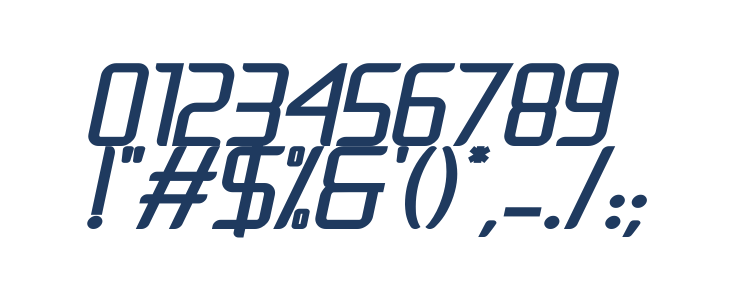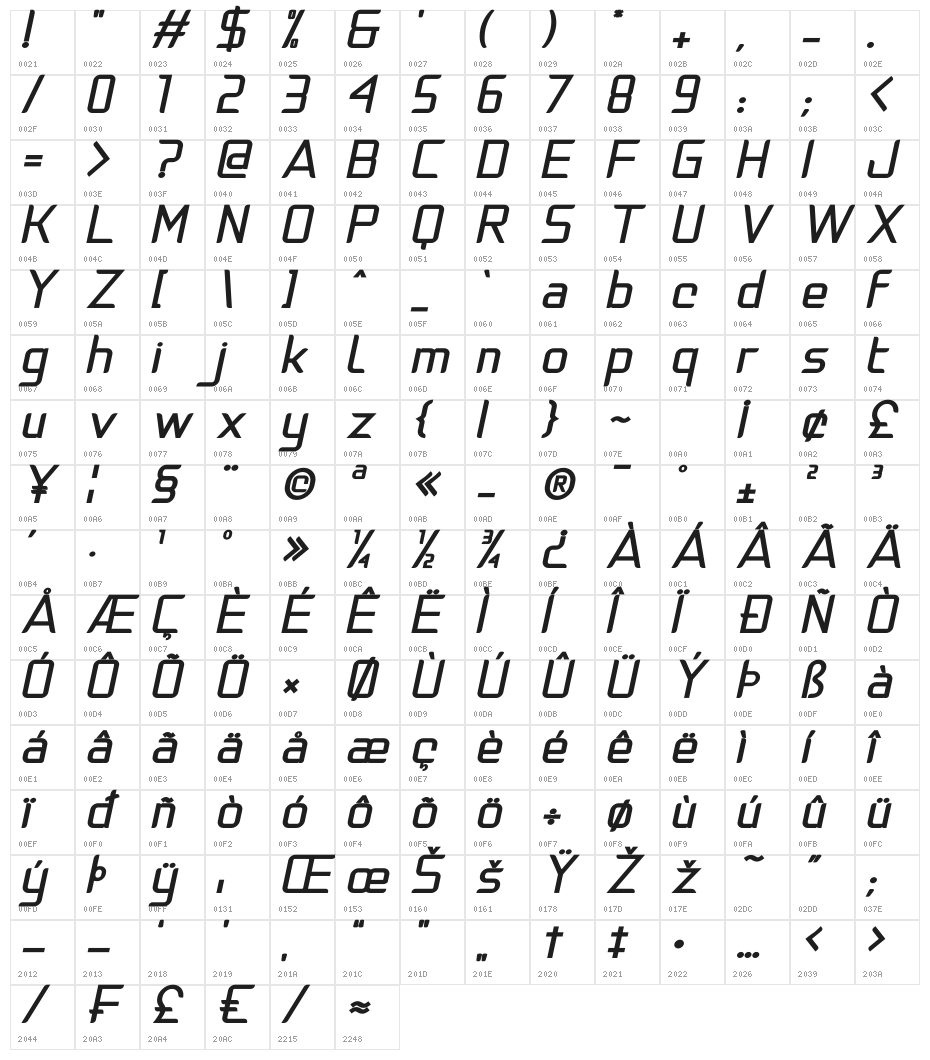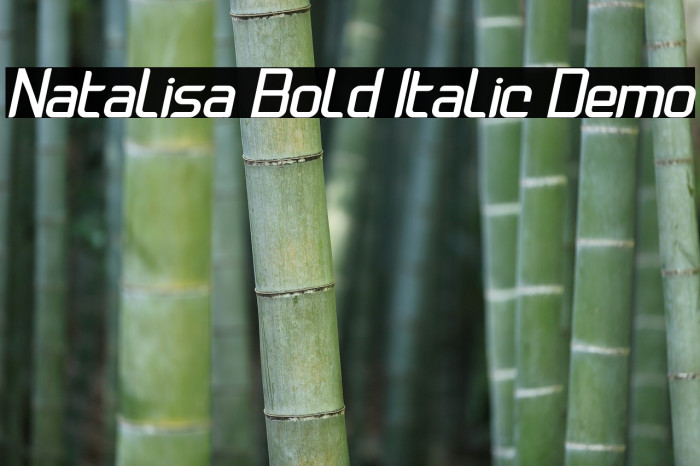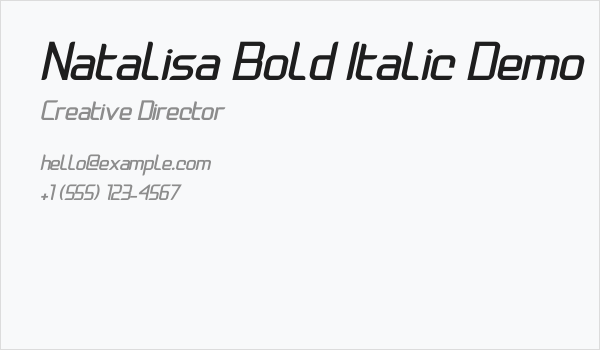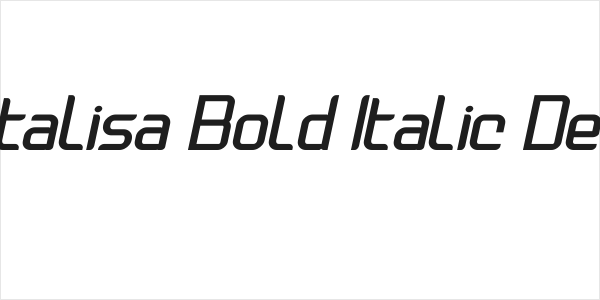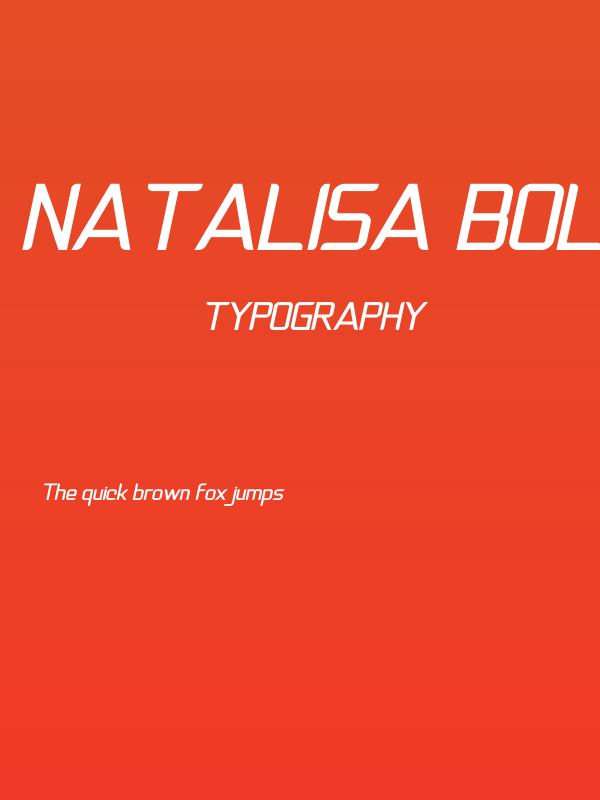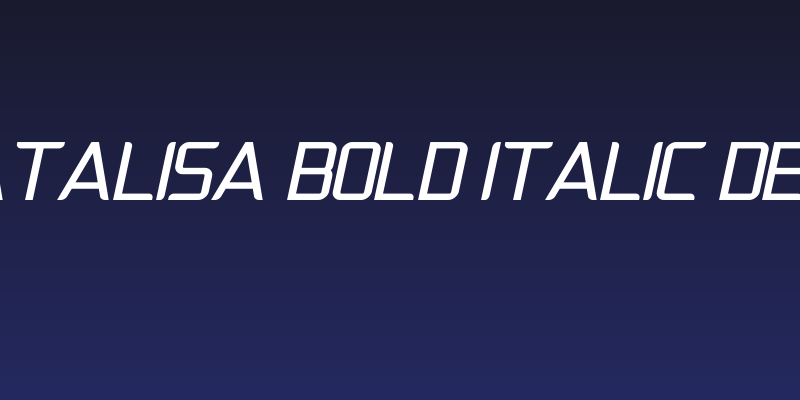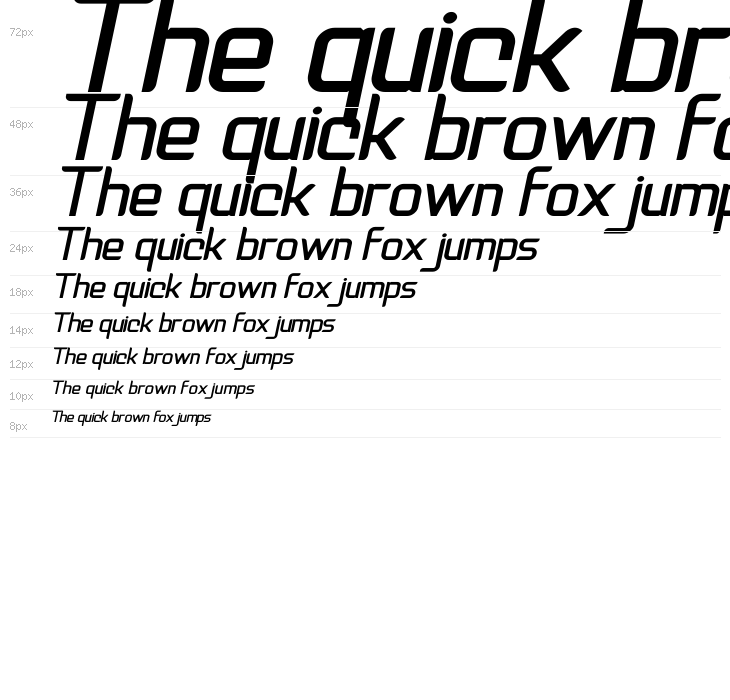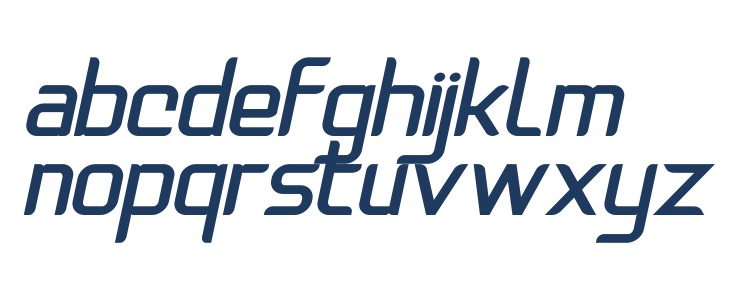
Natalisa Bold Italic Demo Font
Natalisa Bold Italic Demo Description
This font exhibits a sleek, modern design with a distinct italic slant, giving it a dynamic and forward-moving appearance. The characters are bold, with a consistent stroke width that maintains readability while adding a touch of elegance. The uppercase and lowercase letters are well-proportioned, with a slight curvature that enhances the overall fluidity of the typeface. The numerals are clear and balanced, matching the style of the alphabetic characters. Special characters are included, maintaining the same stylistic features, ensuring versatility in various design contexts. The font's boldness and italic nature make it suitable for projects that require a strong visual impact, while its modern style ensures it remains relevant in contemporary design.
Natalisa
| Proposed Projects | Ideal for branding, advertising, and headlines where a modern and impactful look is desired. |